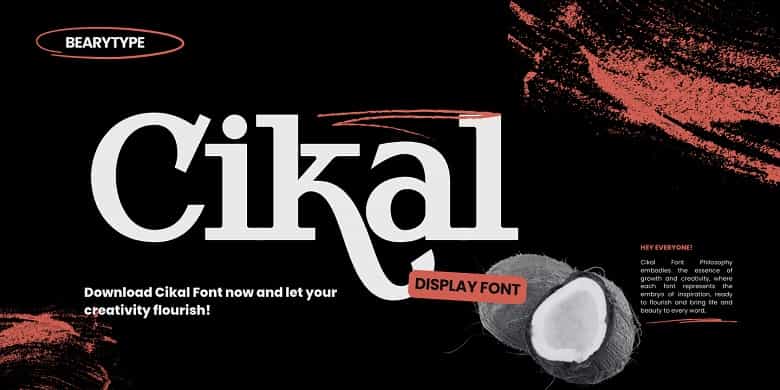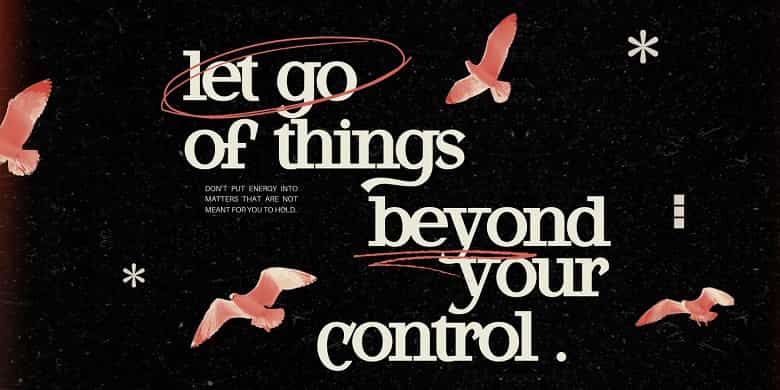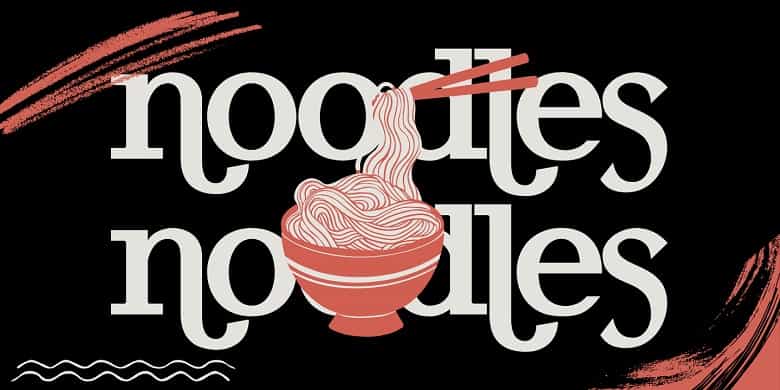
Discover Cikal Font, part of the Slab Serif Display collection—a versatile and unique font perfect for adding a personal touch to your projects. Download it for free and enjoy crafting designs with style, from invitations to social media posts. This font is available exclusively for personal use, giving you the freedom to create without limits. Unlock your creativity with Cikal Font today!
Cikal is drawn from the word that reflect the birth or the beginning of life and it is the concept behind our set of fonts. As a cikal is the initial stage of the plant development, every font in our collection is the start of the idea that will develop and grow.